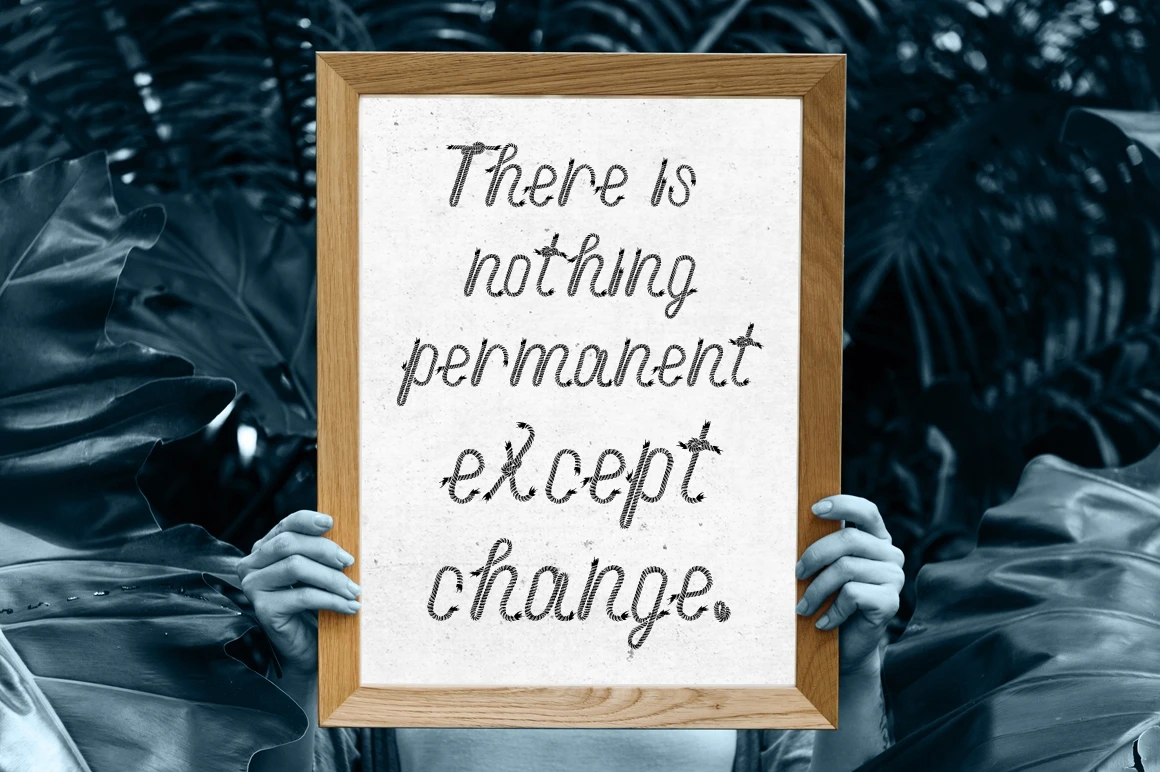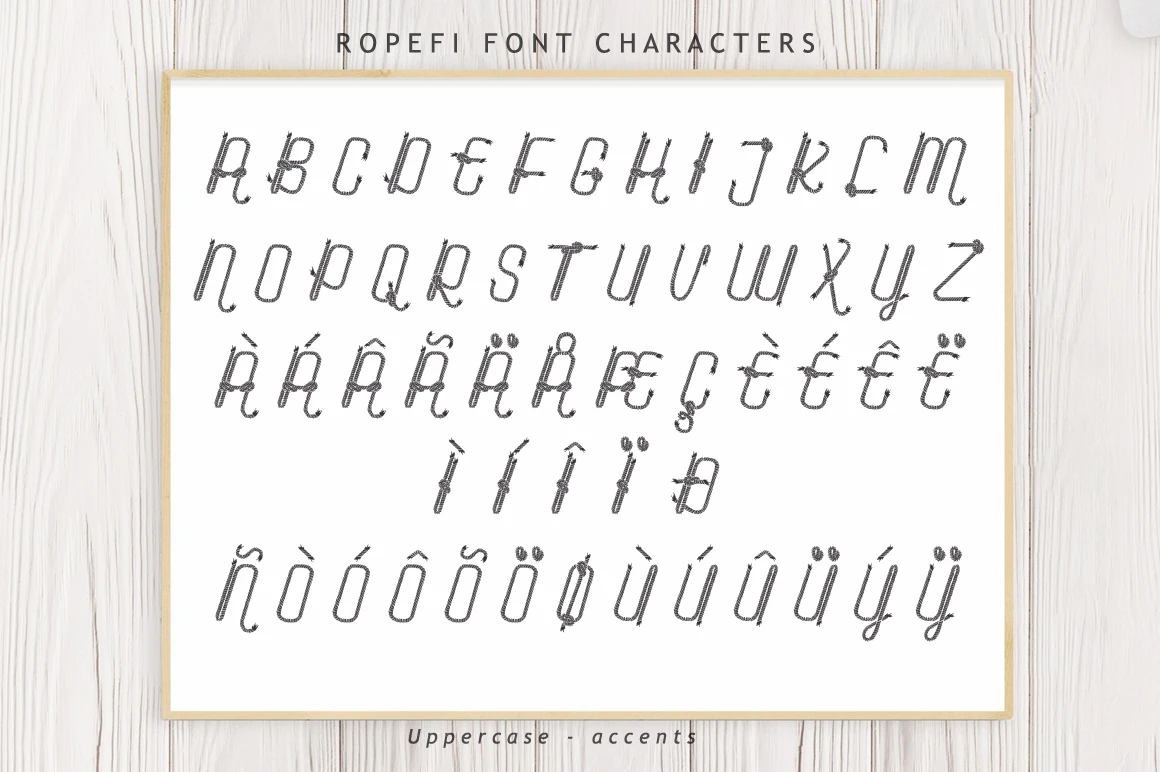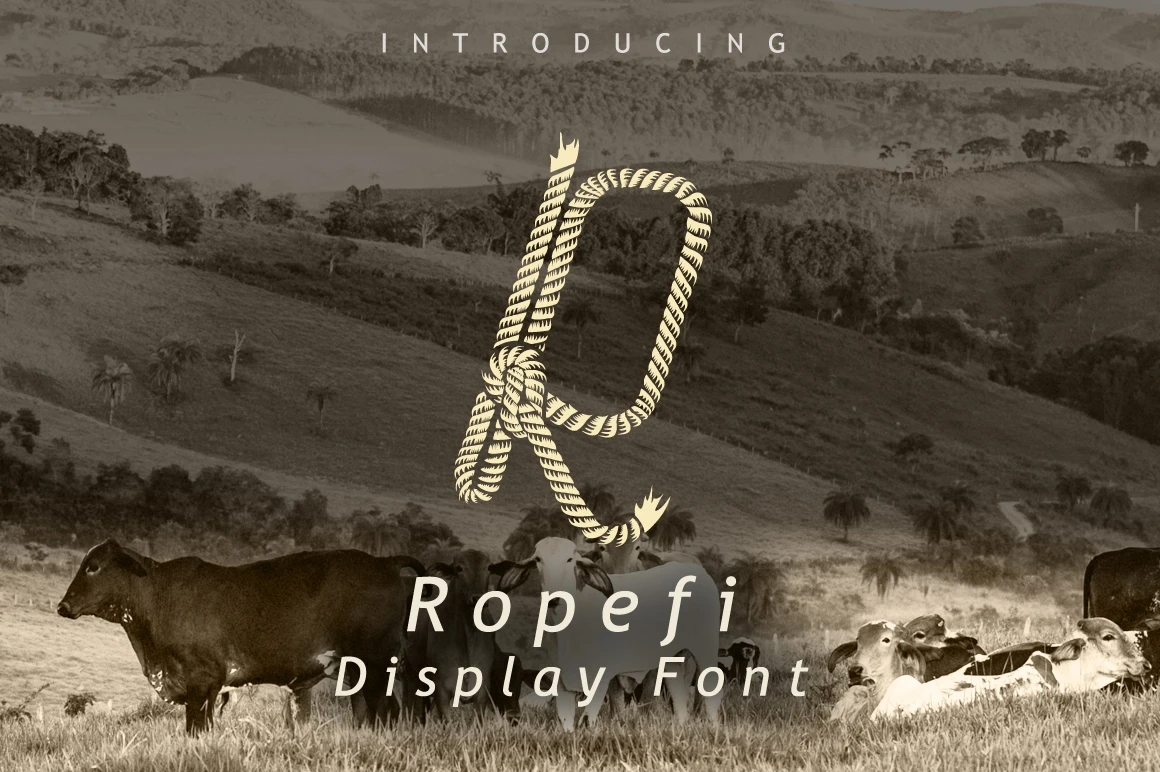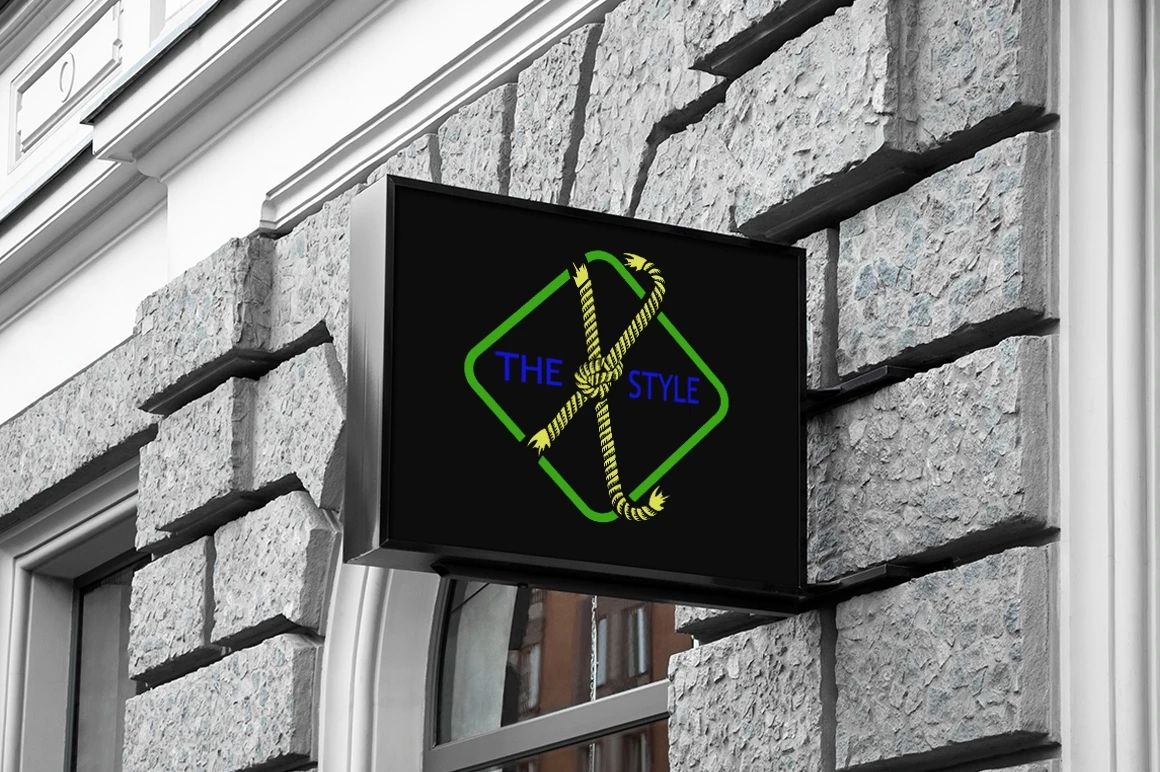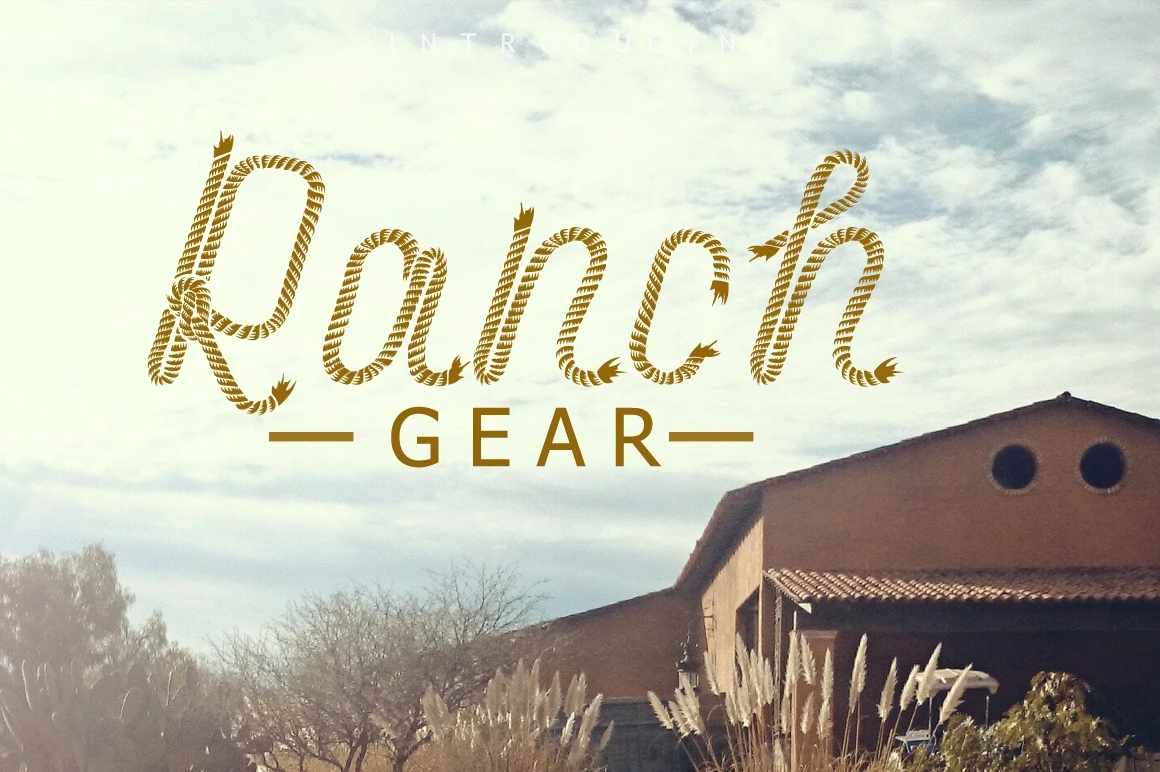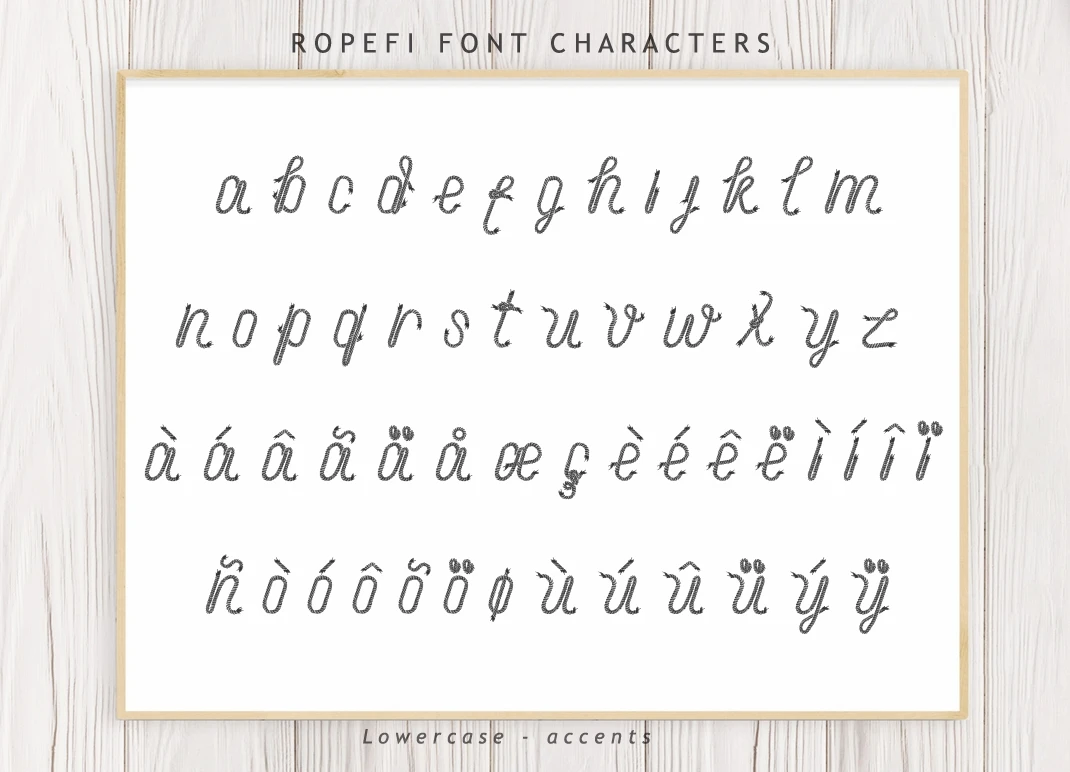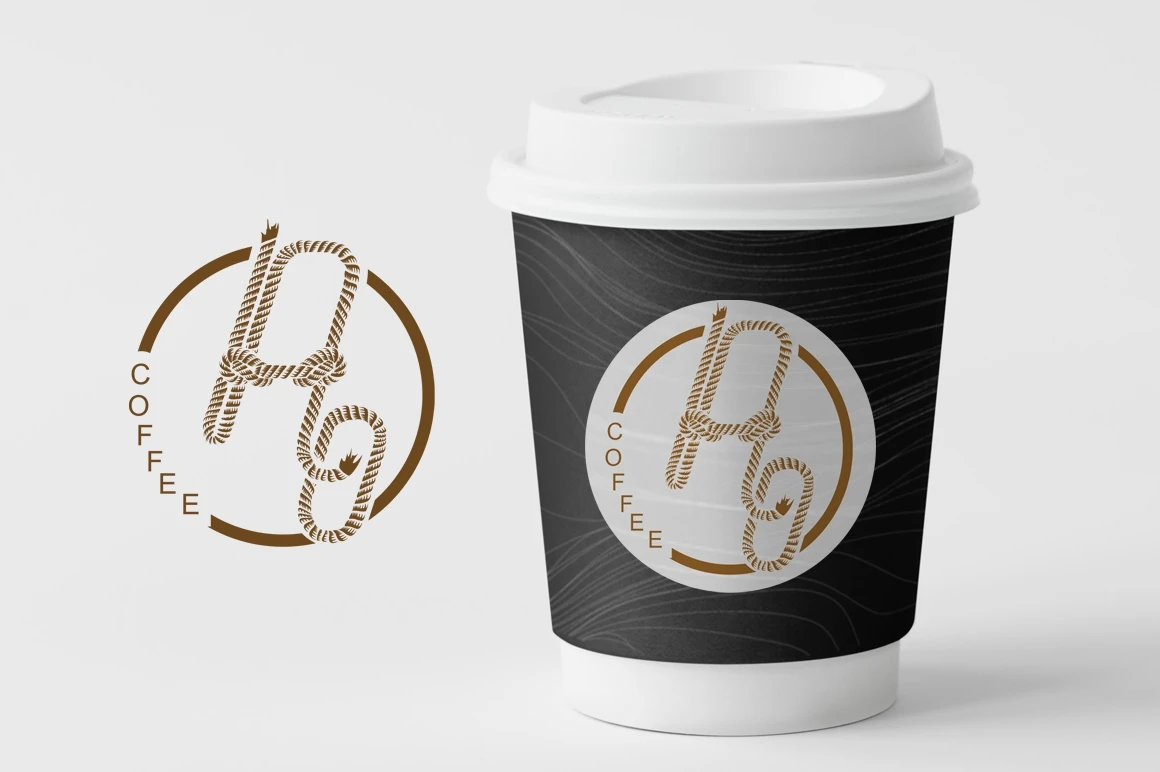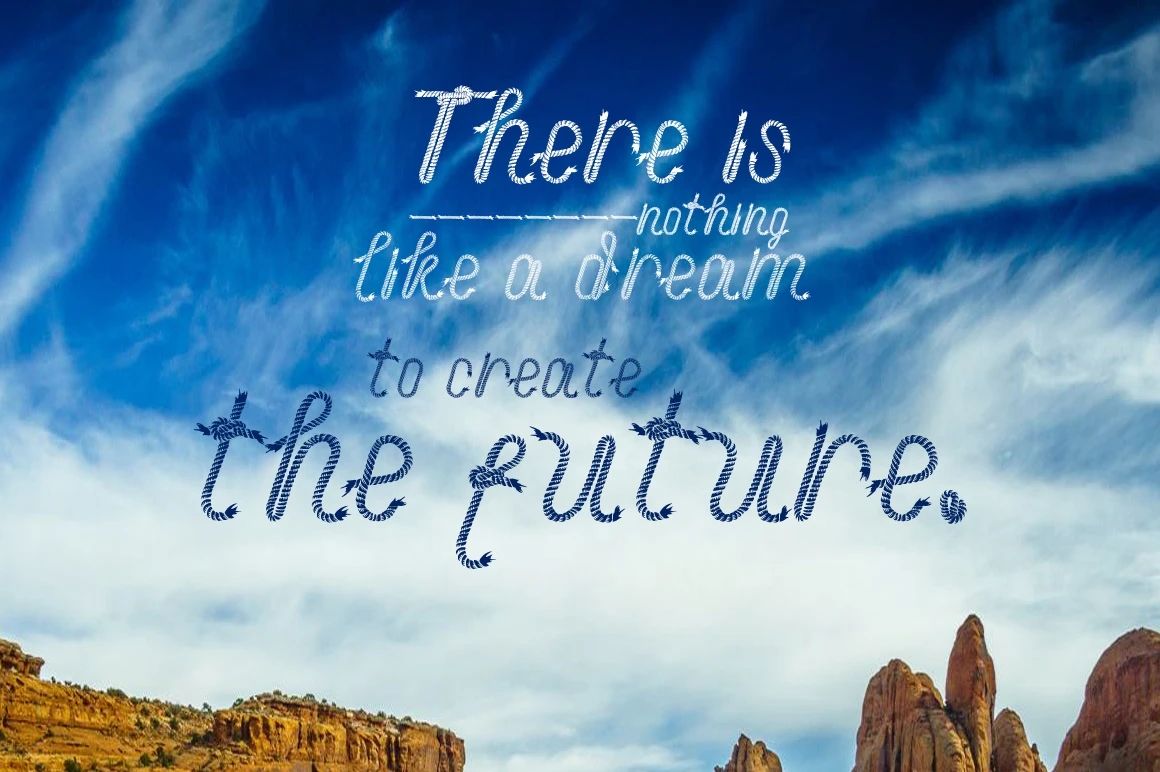
Ropefi is a unique display font with rope texture and vintage touch. Ropefi was designed with texture and knots of realistic rope.
Ropefi perfect for vintage theme designs, ranch theme designs, logos, titles, branding, quotes, product packaging and more.
Features :
- Uppercase A-Z
- Lowercase a-z
- Numbers 0-9
- Accents
- Punctuation
- Multilingual support